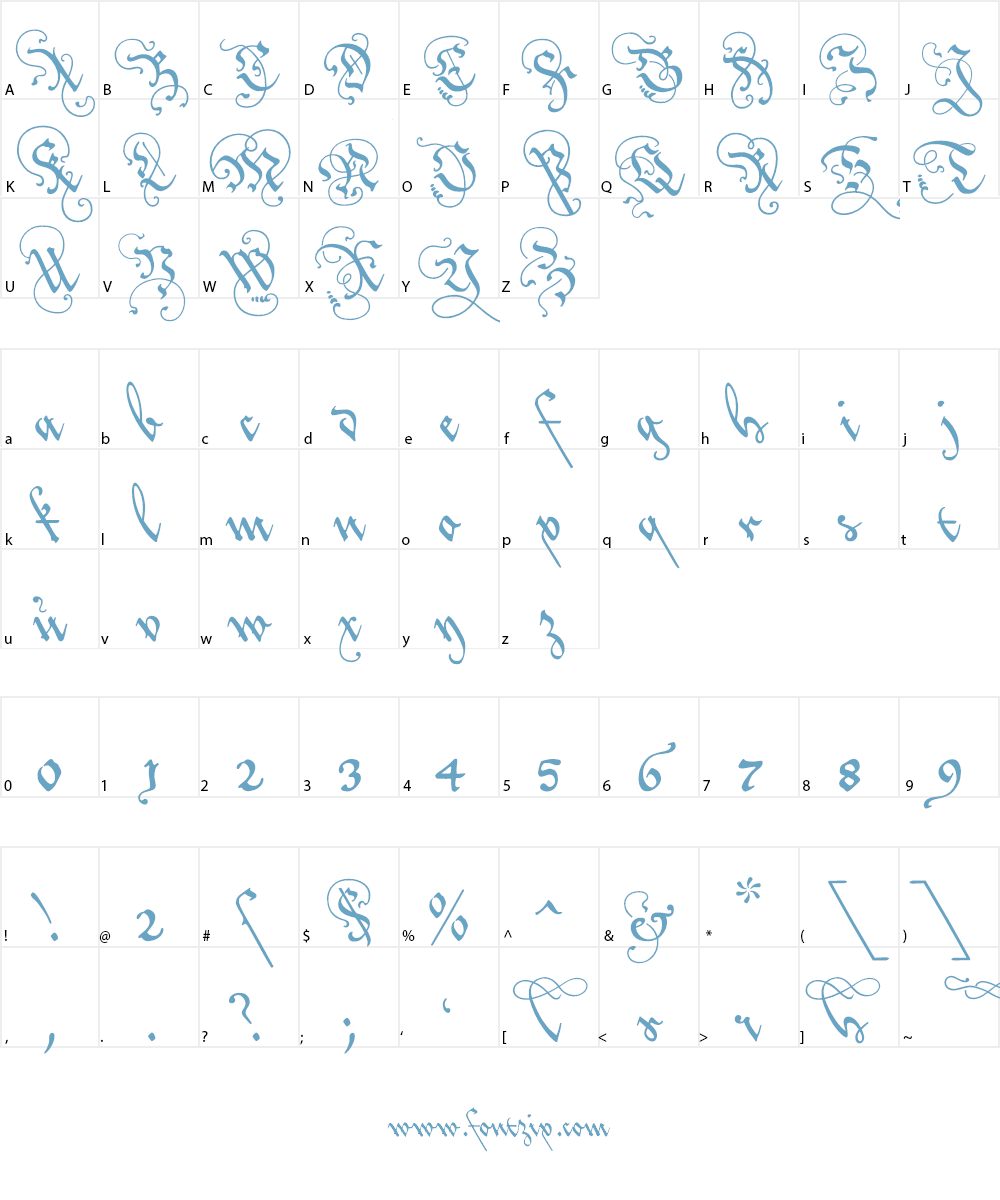
I found the template for this font in an old paperback book on ornamentry. Quite naturally, it's an image copied from a still much older book, showing a sample of writing, entitled: 'Form of a Dainty Slanted Chancery Hand'. The caption in my ornamentry book doesn't name a source, apart from calling the image, hazily, 'Calligraphy, France, 16th century' -- a claim which, obviously, can't be true. For, not only the text, but the style of writing as well, are definitely German. No French calligrapher would have used German to demonstrate his skills, or tried them on such an outlandish blackletter-derived cursive; therefore, I'm left guessing. Since, throughout the centuries, most German writing masters kept publishing their books at Nuremberg, that's the chancery sample's most likely place of origin, too -- but when was it created, and by whom? There are lots of candidates, from Wolfgang Fugger, in the 16th century, to Michael Baurenfeind, at the beginning of the 18th. My guess would be the latter. Lastly, I've come upon an image from Baurenfeind's 1716 book Vollkommene Wiederherstellung der (...) Schreib-Kunst, (= 'Complete Restitution of the (...) Art of Writing' -- believe me, you don't want to know the whole extent of the book's monster title). Said image displays another writing sample called 'Form of...' --, the inital F being an identical twin to the one in my template.
I nearly gave up on this one. There was, of course, no complete set of upper case letters in the writing sample, and the lower case letters, joining delightfully in the image, had an incredible propensity to look out of place when combined in other ways than those the artist had provided. It took a tremdendous amount of time and patience to complete those two sets of characters; and that's why, taking a deap breath at the end, I decided to call the font Love'sLabour. Let me just hope now that it is not entirely Lost.
There is a little hook above the u in this font, which is quite necessary, to distinguish it from the n. And the parentheses look like brackets: they were written like this in the pattern.
The flower ornament in this font is based on a motive I found in a 1664 book on fountain architecture.
Apart from the long s on the number sign, you'll find some alternate characters, and lots of swashes, in this font. Those are:
a complicated underline swash on the underscore
a more simple underline swash on the bar and broken bar sign
an alternate s on the 'less than' sign. This is the original s from the template. I didn't like it, so I made another, less 'German'-looking, one.
an alternate r on the 'greater than' sign
a swashed l on the left bracket
a swashed h on the right bracket
a swashed b on the long s sign
a swash on the left curly bracket (to be used like an accent)
a swash on the right curly bracket (to be used like an accent)
a swash on the ASCII tilde (to be used like an accent).
Update 2010 has redesigned all of the composite glyphs (correcting the dcaron, Lcaron/lcaron, and tcaron), and enlarged the dashes.